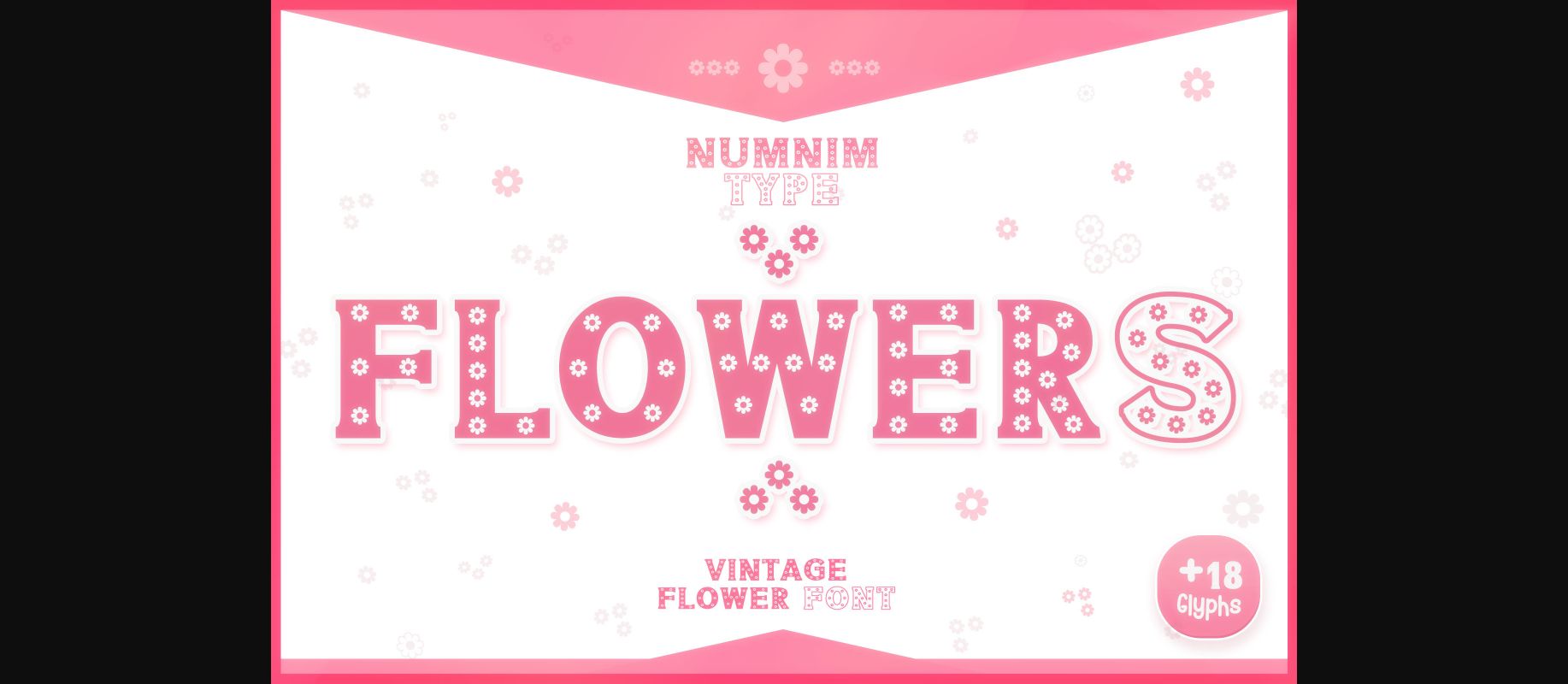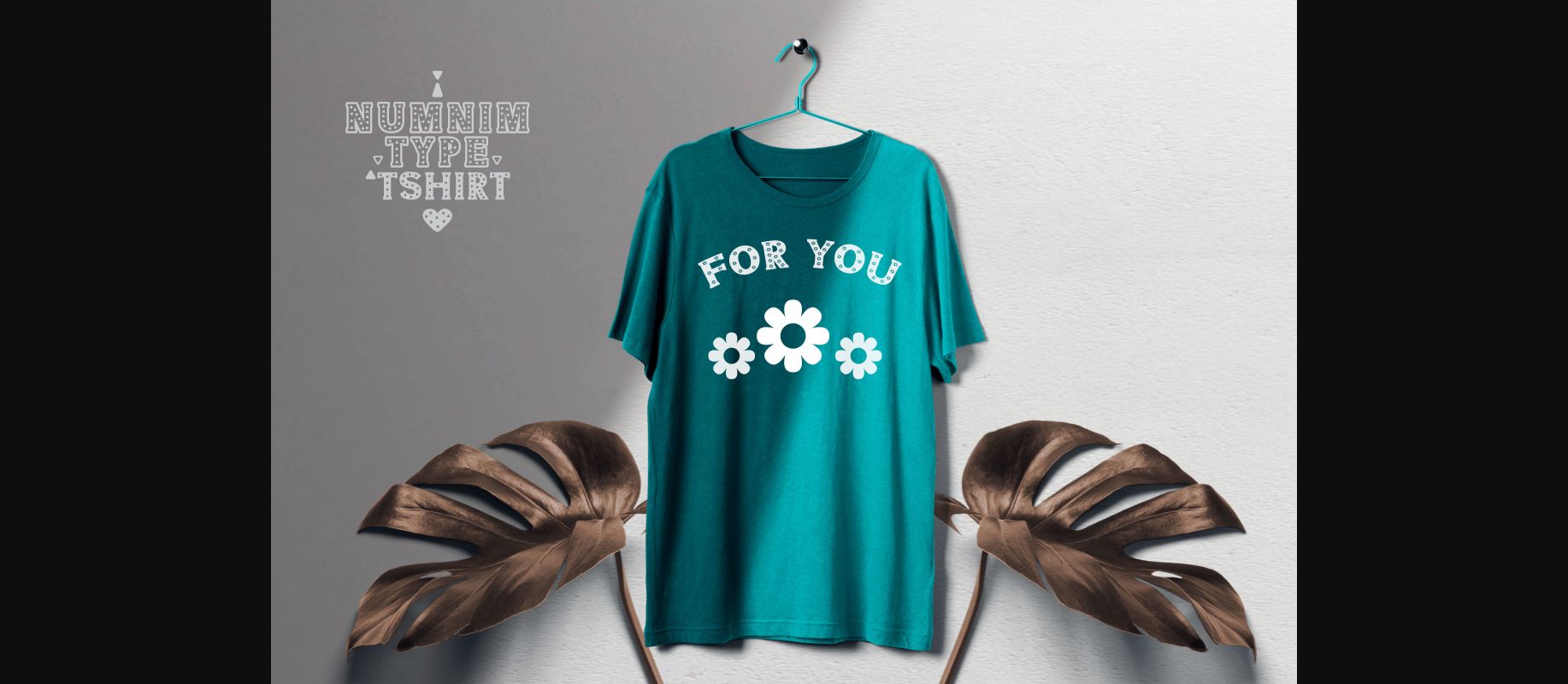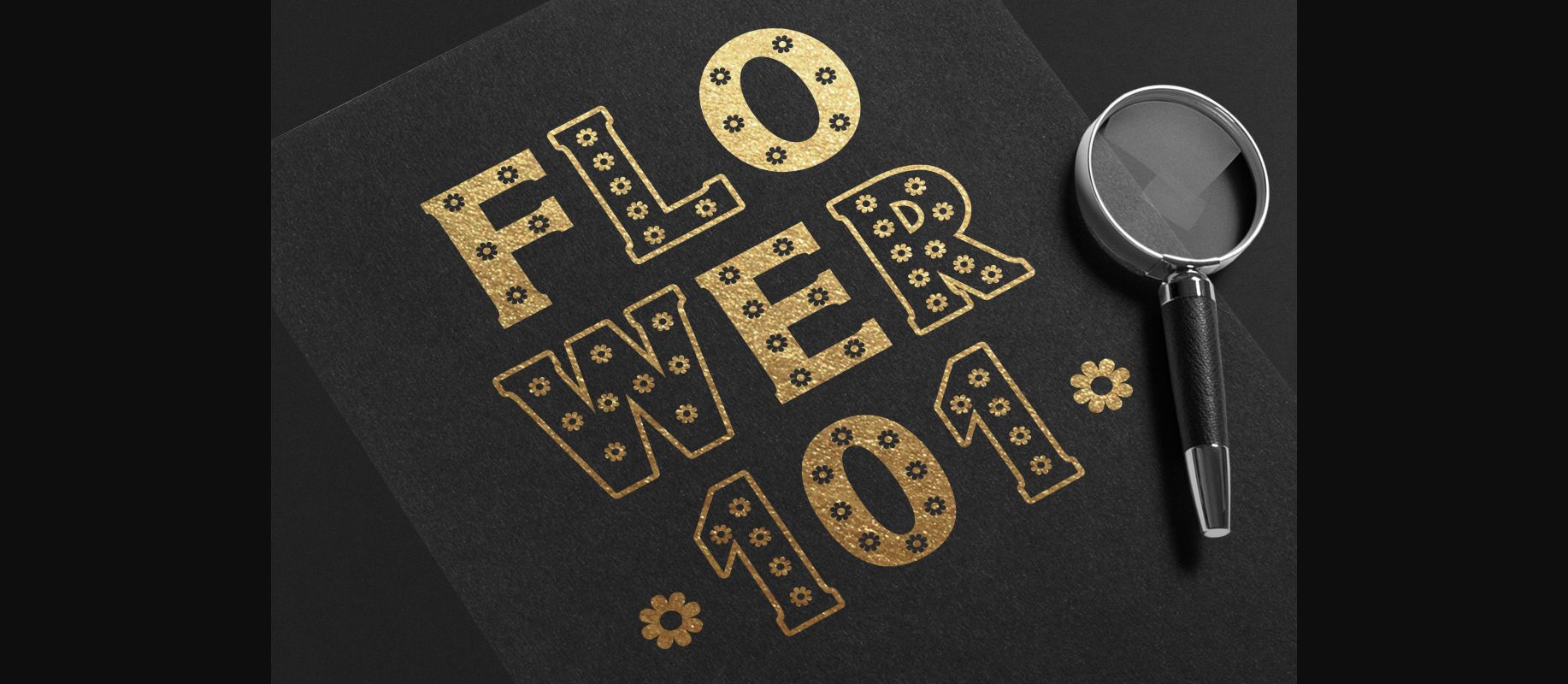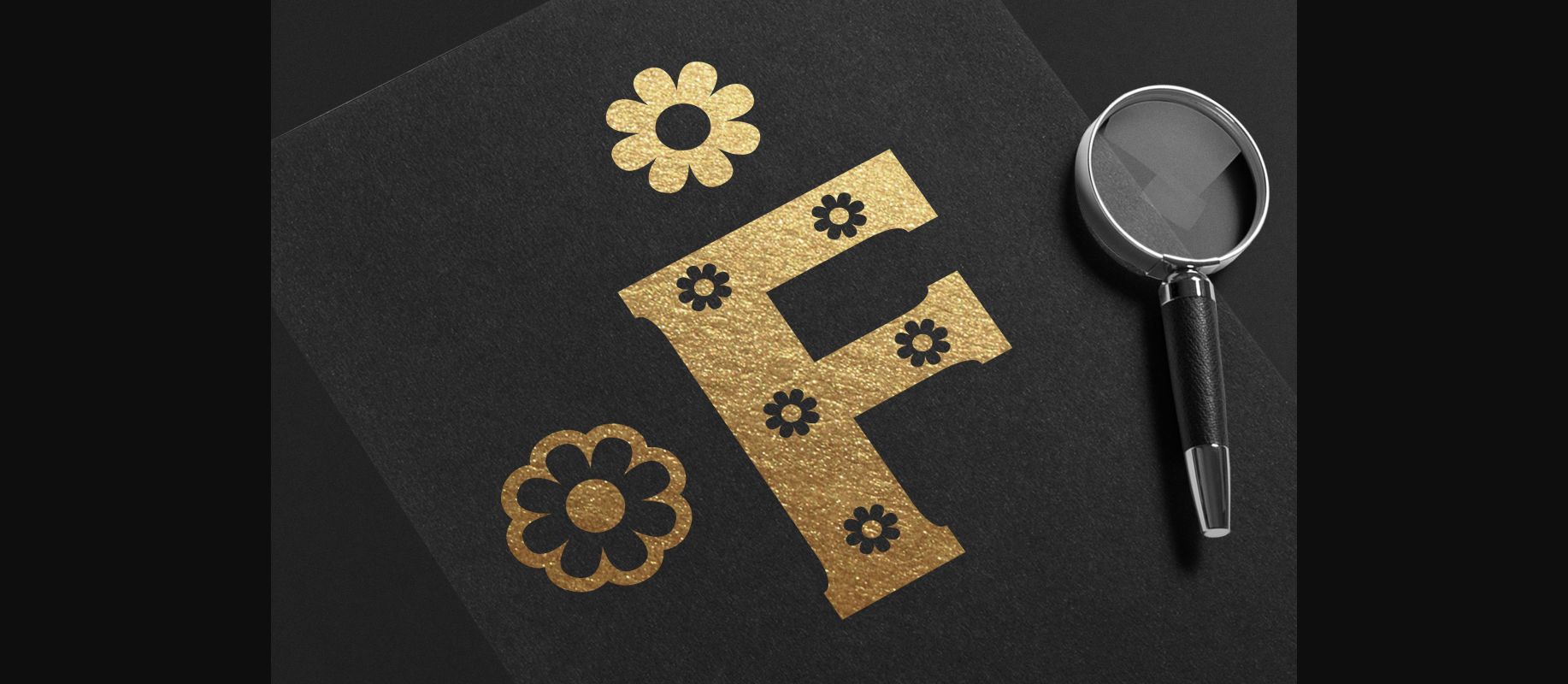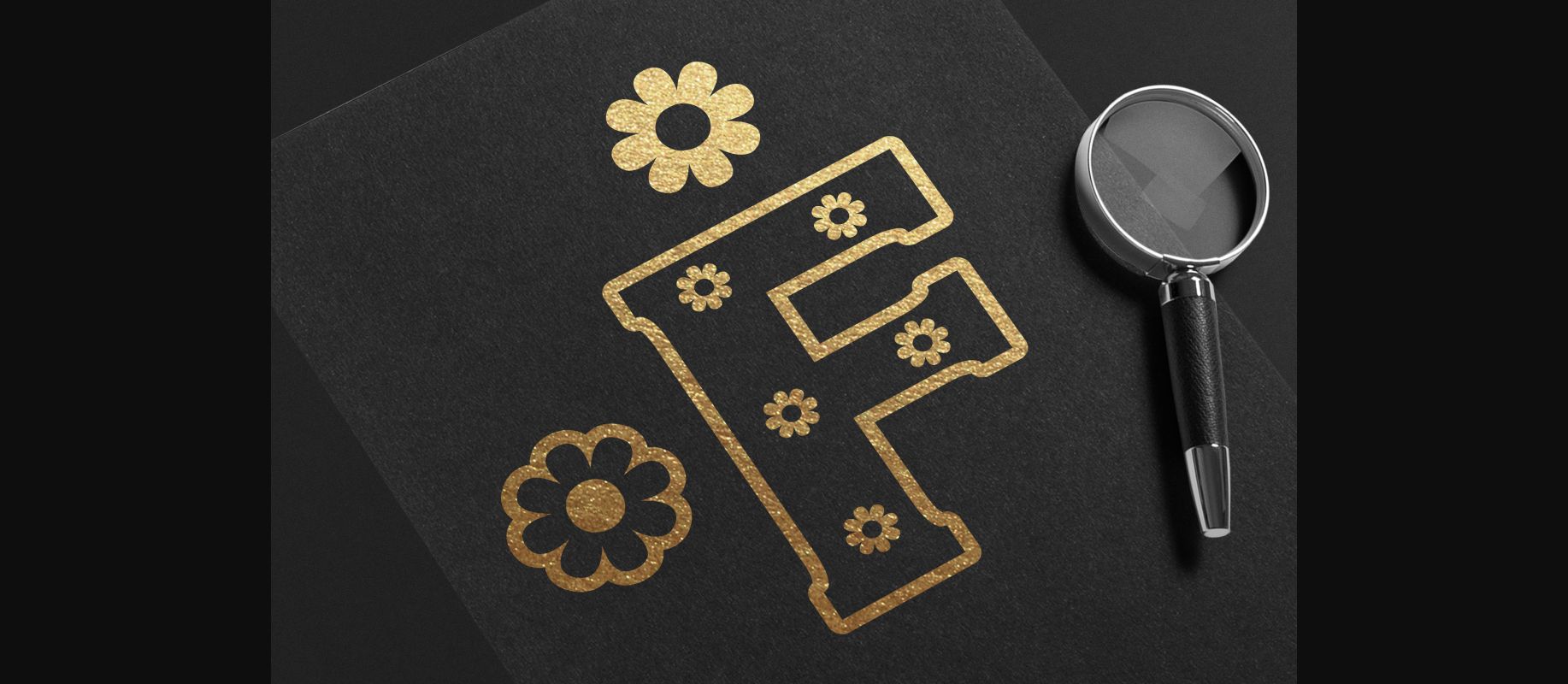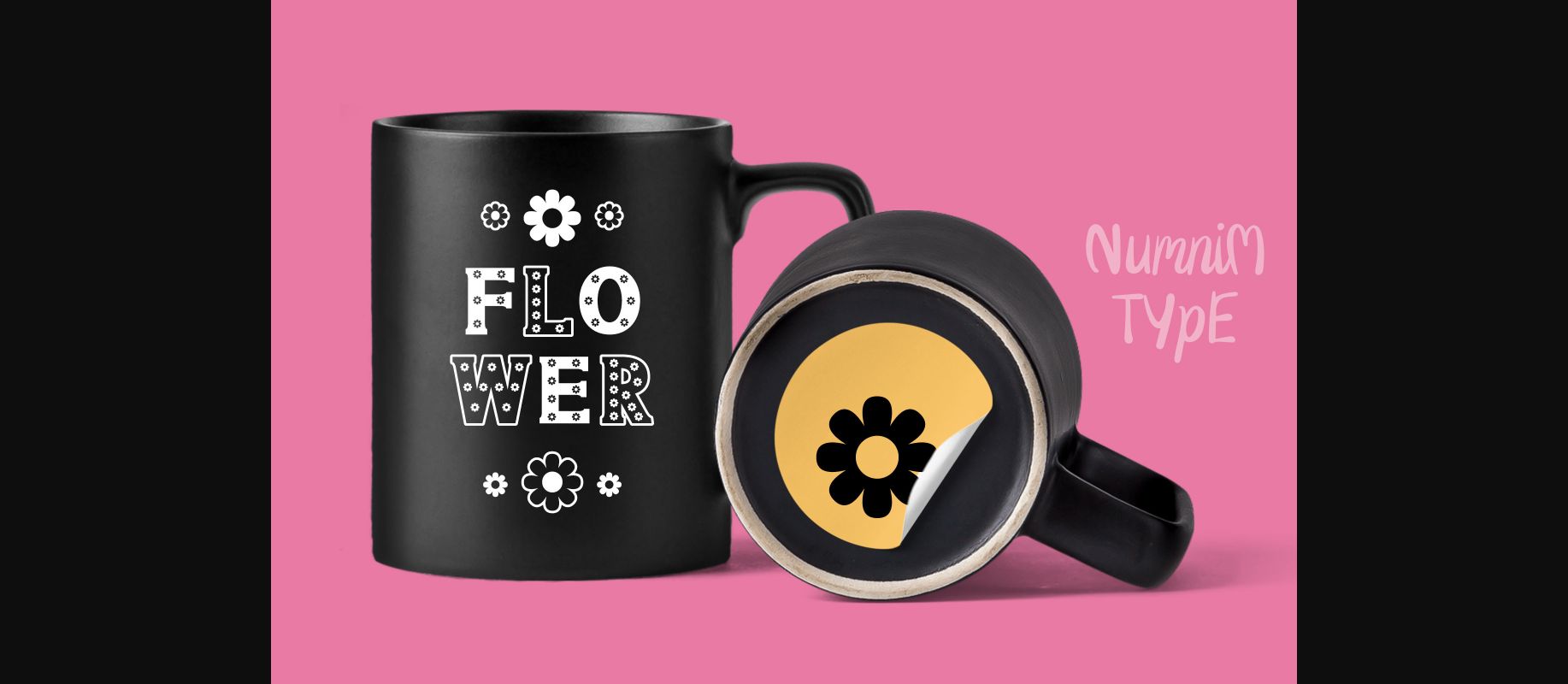
Flowers Font
About Flowers Font
Flowers is a cool, bold, and thick lettered decorative font. Add it confidently to your favorite creations, and let yourself be amazed by the outcome generated!